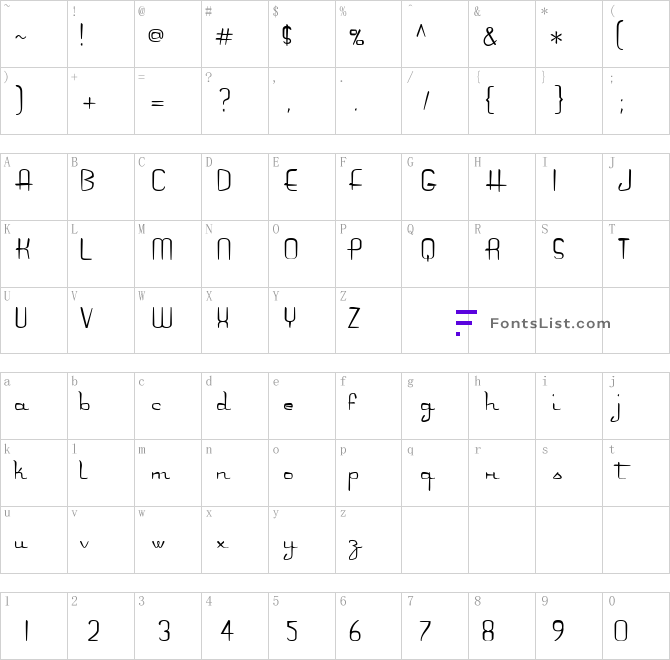
- Font Name:AlsMotorInn
AlsMotorInn.ttf is a very beautiful artistic font, AlsMotorInn.ttf is widely used in the design and printing of various books and pictures,AlsMotorInn.ttf has a strong visual impact,AlsMotorInn.ttf is a commonly used font in newspapers, magazines and books, and is used in posters, e-commerce Poster design, store design, logo design, font design and other fields.AlsMotorInn.